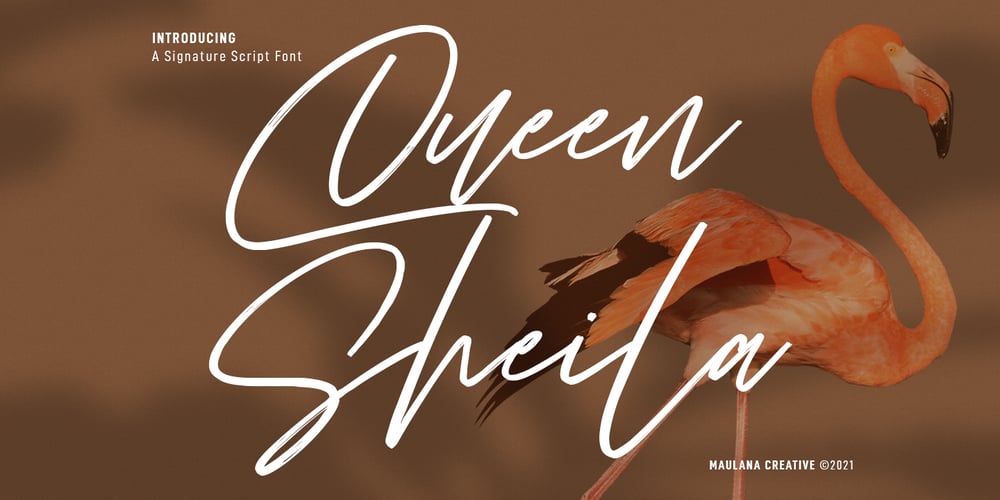
Queen Sheila Font Family was designed by Gilang Maulana and published by Maulana Creative. Queen Sheila contains 1 styles and family package options. Queen Sheila is a signature brush font. With regular brush stroke, fun character with a bit of ligatures. To give you an extra creative work. Queen Sheila font support multilingual more than 100+ language. This font is good for logo design, Social media, Movie Titles, Books Titles, a short text even a long text letter and good for your secondary text font with sans or serif. Make a stunning work with Queen Sheila font. Cheers, MaulanaCreative